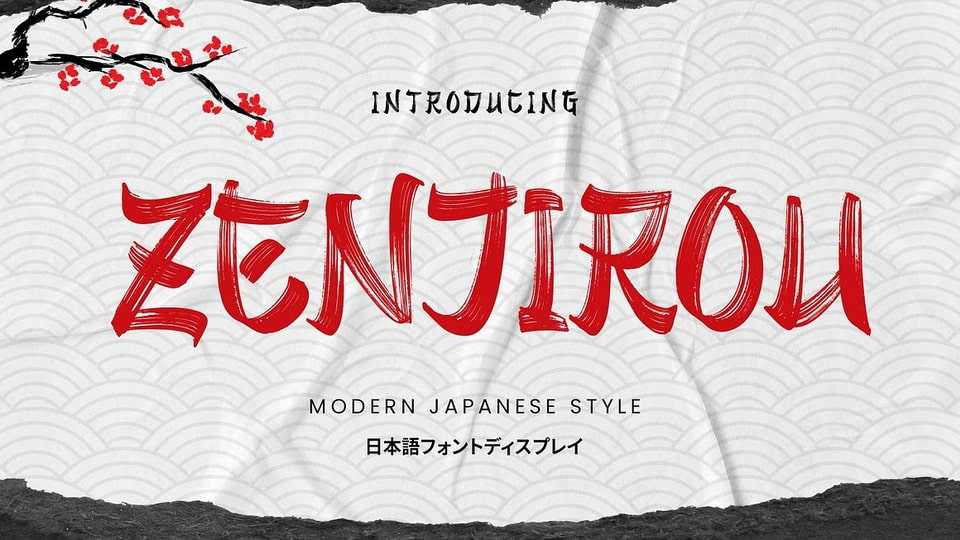
Download Zenjirou font, a typeface inspired by Japanese lettering. Designed with a natural brush style, it captures the essence of traditional Japanese calligraphy.